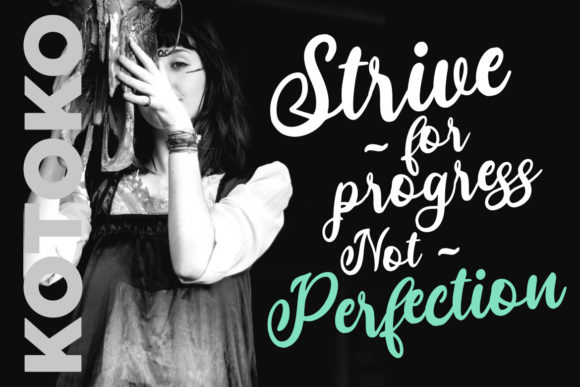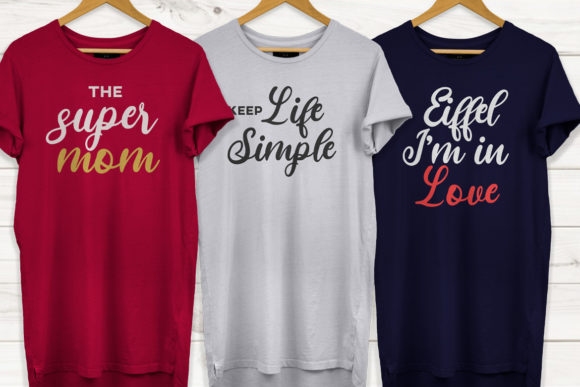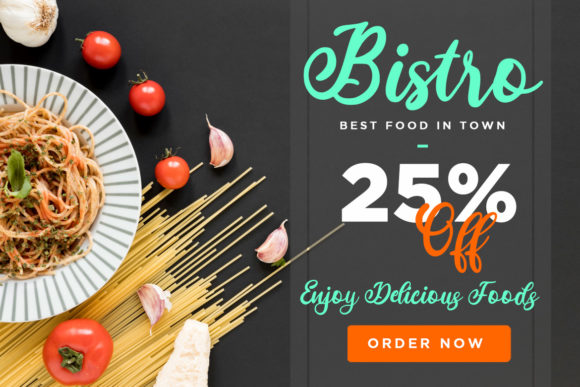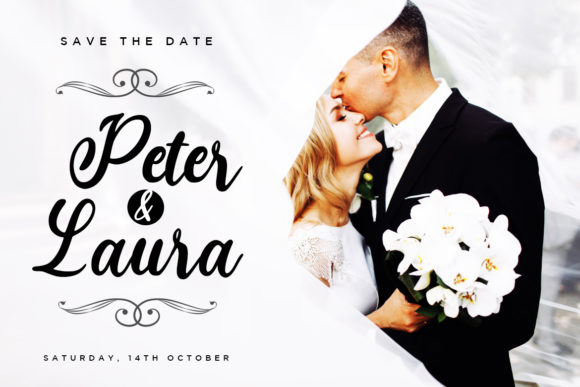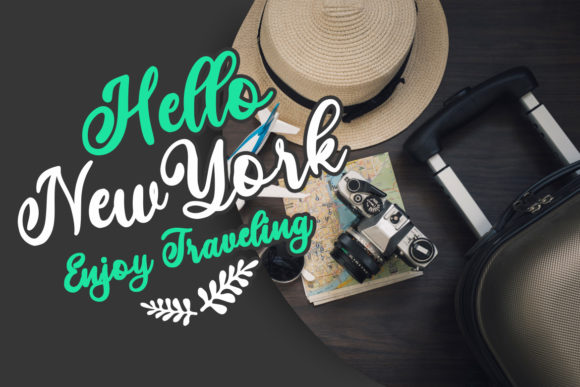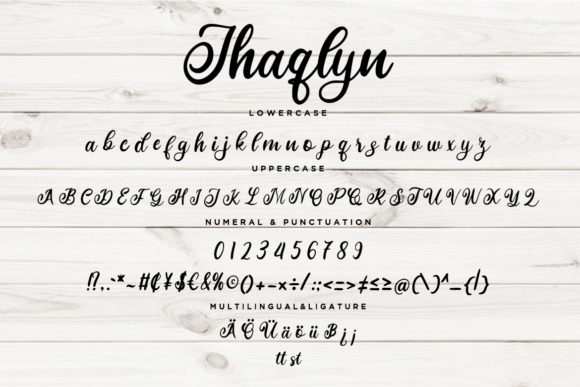
Introduction to Jhaqlyn Font
Remember the thrill of brainstorming a creative idea and bringing it to life? For many designers, this moment is what drives their passion and fuels their imagination. But, have you ever felt that your design just needs that extra something to elevate it to the next level?
That’s where the Jhaqlyn Font comes in – a fun and cool handwritten font with a fancy look that adds an elegant feel to any creative project. With its unique style, this design resource is perfect for those looking to add a touch of sophistication to their work.
Whether you’re working on a free download or a high-quality design, the Jhaqlyn Font is an invaluable asset for designers. Its transparent background makes it easy to combine with other elements, and its versatility ensures it’s suitable for a wide range of creative projects.
Key Features of Jhaqlyn Font
- Transparent background for seamless integration into your designs
- Designed with a unique, modern aesthetic, perfect for digital and print projects
- Perfect for graphic designers, artists, and creatives looking for a distinctive font for their next project
Honest Review: Jhaqlyn Font
I recently had the chance to work with the Jhaqlyn Font, and I must say it’s a great addition to any design resource. This free download is perfect for creative projects that require a unique and eye-catching font.
The Jhaqlyn Font has a high quality and elegant design that’s sure to elevate your project. One of the standout features is its transparent background, making it easy to customize and pair with any background image.
- Fits well with modern design trends
- Only a few weights are available (⚠️)
- No italic or bold variations (⚠️)
Overall, I’m impressed with the Jhaqlyn Font. It’s a great option for designers looking for a high-quality, free font to use in their creative projects. Just be aware of the limitations, and you’ll be good to go.
Tips for getting the most out of the Jhaqlyn Font include using it with a transparent background for a clean look, combining it with other design elements for a unique aesthetic, and experimenting with different font sizes and styles.
Common use cases for the Jhaqlyn Font include creating invitations, posters, and social media graphics, as well as using it for headings and titles in presentations and documents.